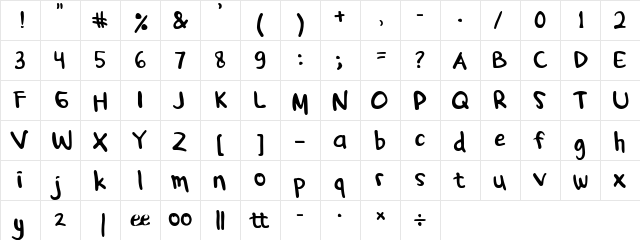
deefont Regular
| Designer | bathara |
Design Context for deefont Typeface
deefont is a composed and adaptable typeface that performs quietly and consistently across a wide range of design contexts.